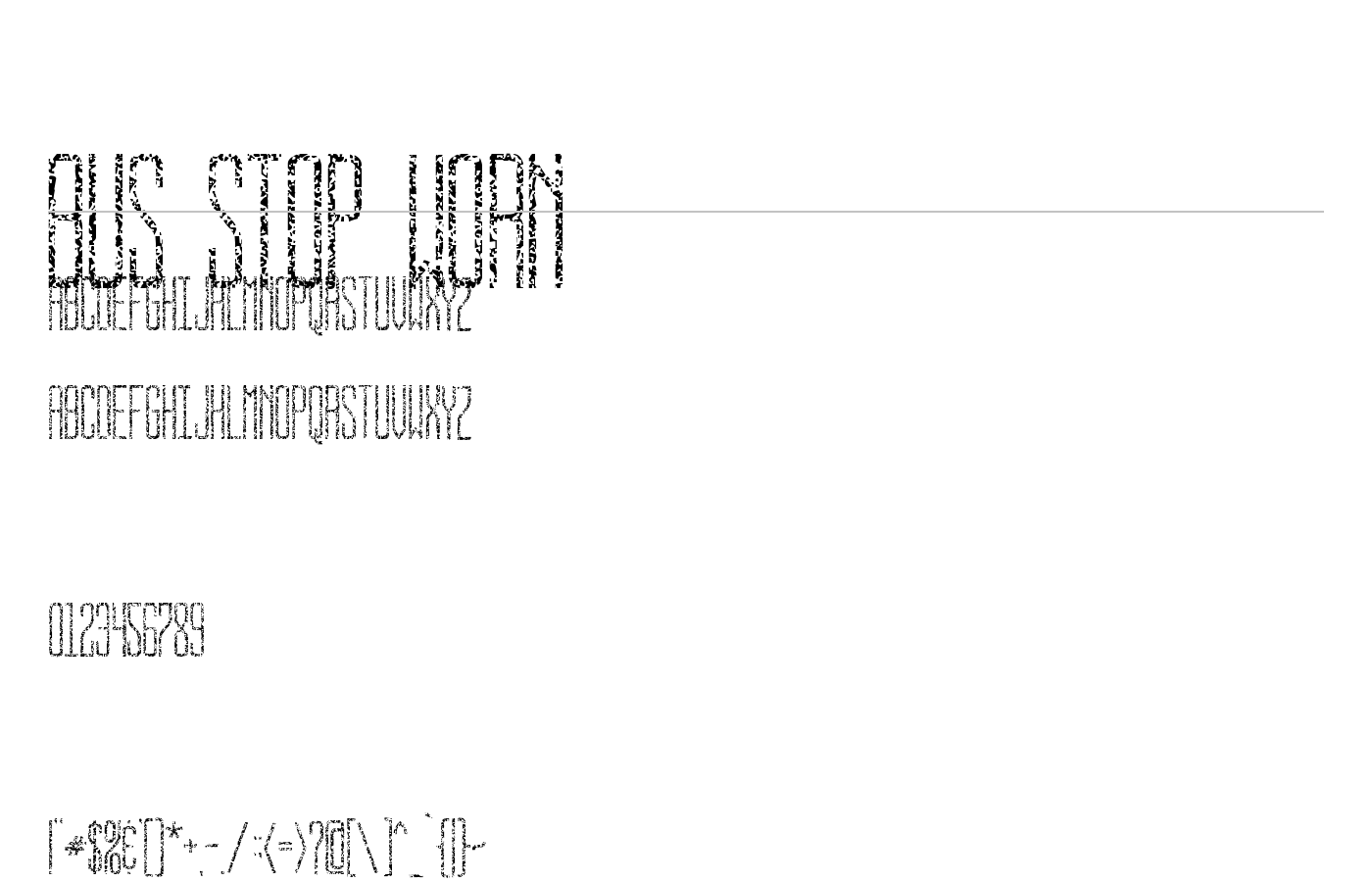
BUS STOP WORN is a narrow, distressed sans serif font with a tall, condensed structure and rough, textured edges that evoke a vintage, industrial feel. Its worn, imperfect lines give it a rugged, urban look perfect for edgy designs, streetwear branding, or artistic posters that need a bold, gritty atmosphere. This font works best in headlines or display settings where its unique distressed character can stand out and add personality.
BUS STOP WORN Font